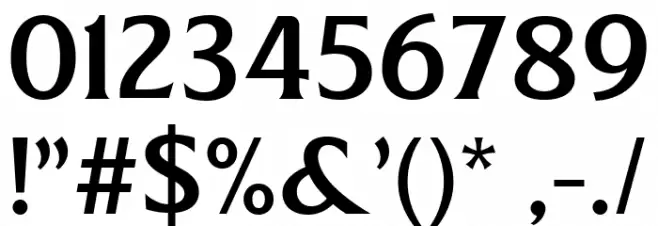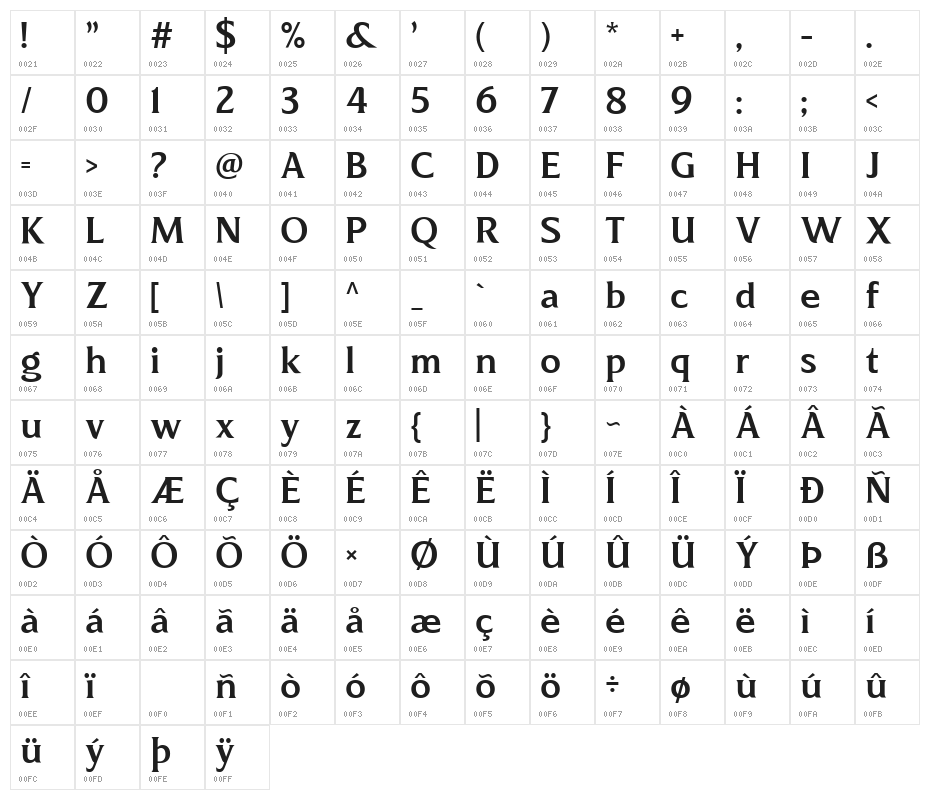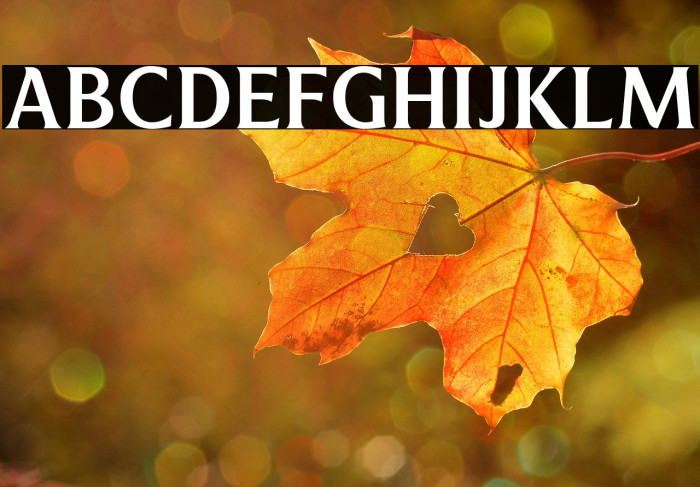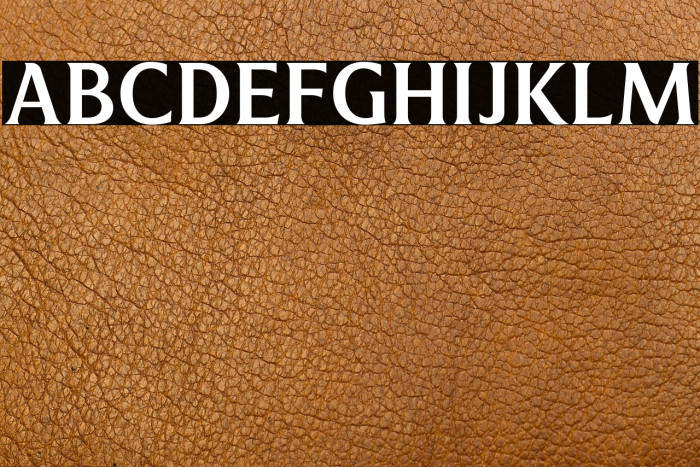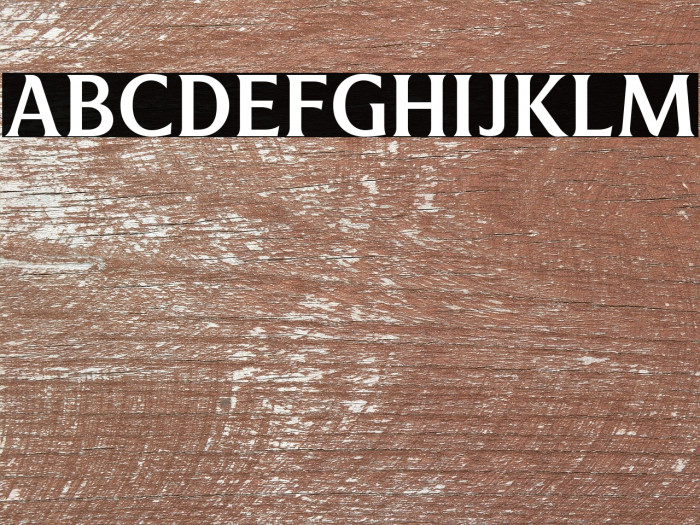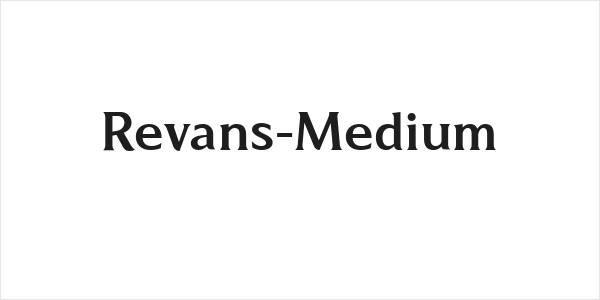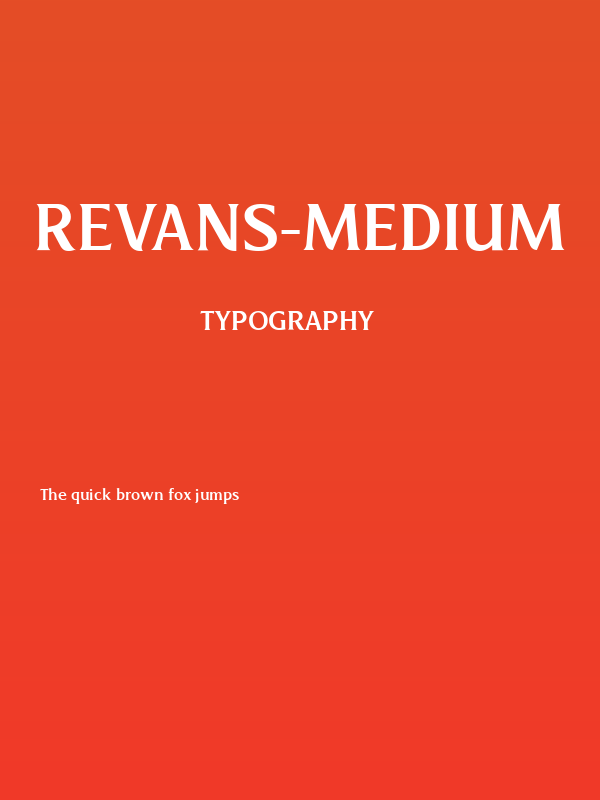
Revans-Medium Font
Revans-Medium Description
This font features a classic serif design with a modern twist, characterized by its sharp, clean lines and balanced proportions. The uppercase letters exhibit a strong presence with slightly flared serifs, while the lowercase letters maintain a harmonious flow, making it versatile for various applications. The numerals are clear and distinct, ensuring readability. Special characters are elegantly integrated, maintaining the font's cohesive aesthetic. Overall, this typeface combines traditional serif elements with a contemporary style, suitable for both digital and print media.